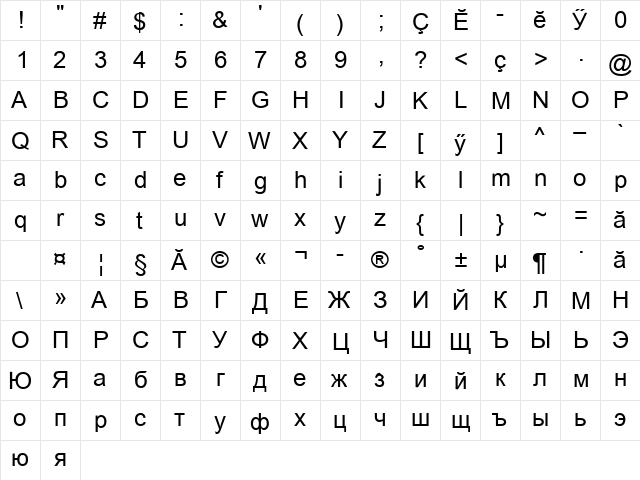
Arial Cyr Chuv Regular
Design Context for Arial Cyr Chuv Typeface
Arial Cyr Chuv is a composed and adaptable typeface that performs quietly and consistently across a wide range of design contexts.